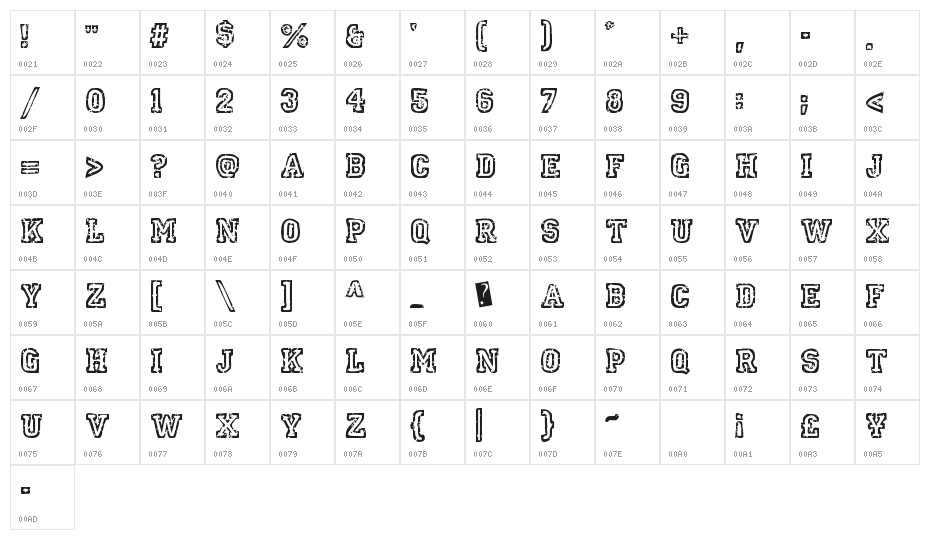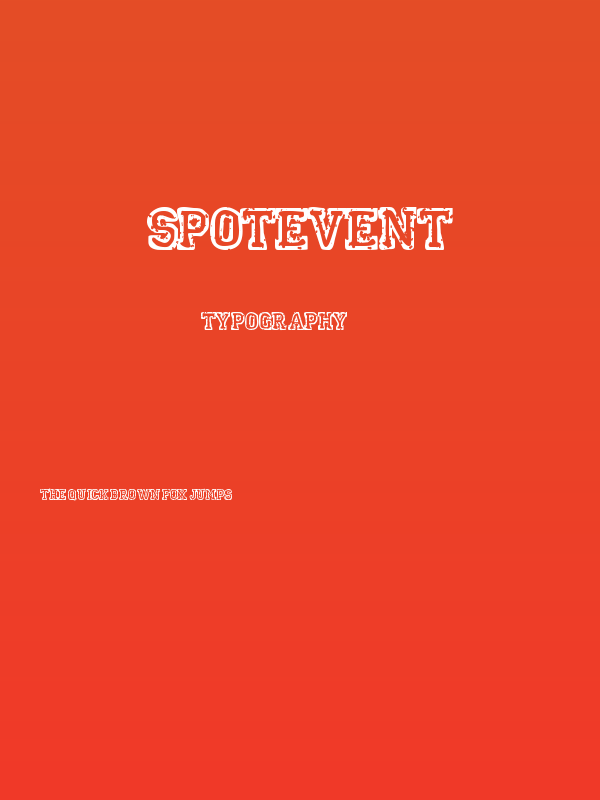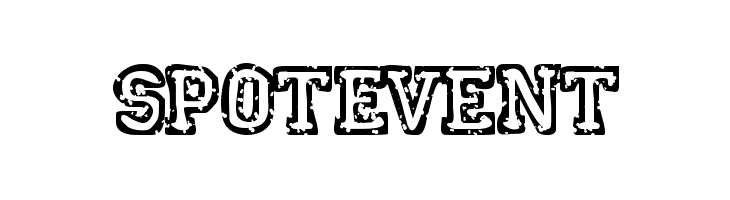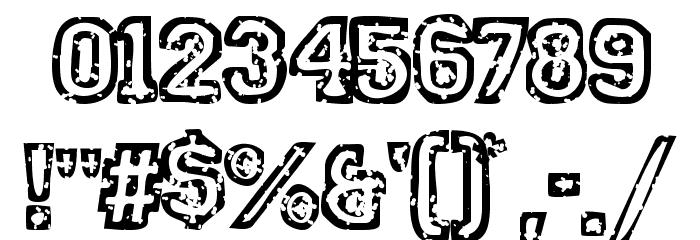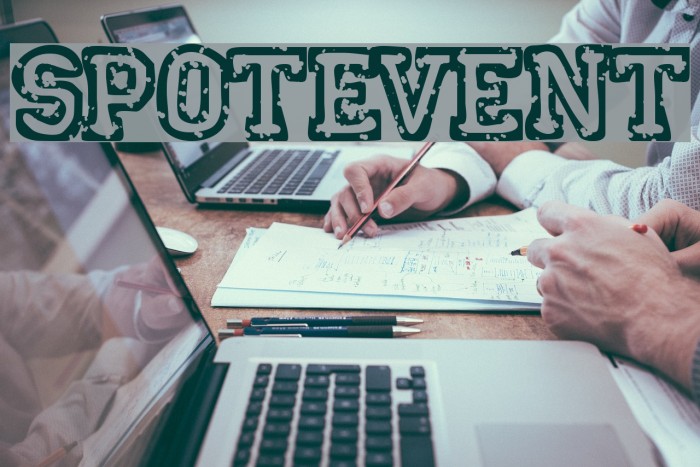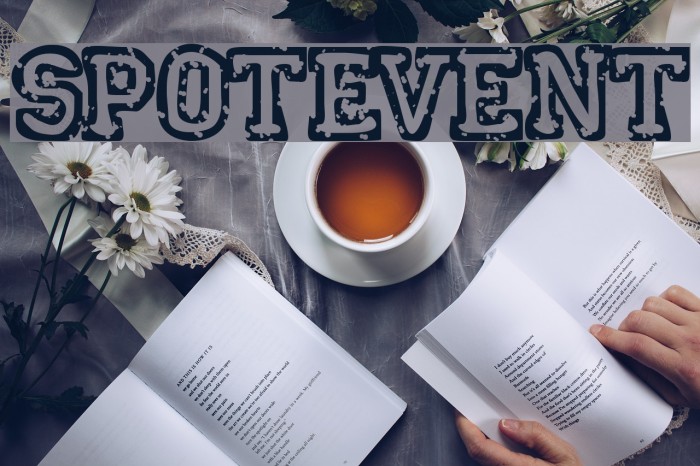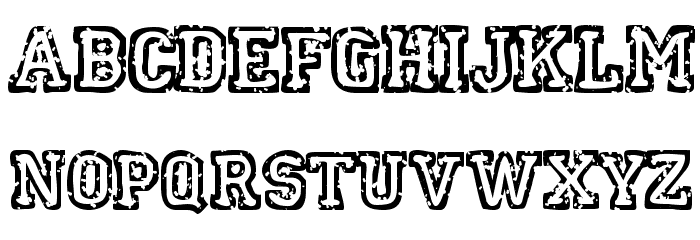
SpotEvent Font
SpotEvent Description
This font exhibits a bold and distressed style, characterized by its rough, textured edges and a strong, impactful presence. The uppercase and lowercase letters maintain a consistent width, giving the font a balanced appearance despite its rugged design. The numbers and special characters follow the same distressed pattern, ensuring uniformity across all glyphs. This font's unique style makes it stand out, offering a vintage or grunge aesthetic that can add character to any design project.
| Overall Style | Vintage |
| Proposed Projects | Ideal for poster designs, album covers, branding for edgy or alternative products, and any project seeking a vintage or distressed look. |